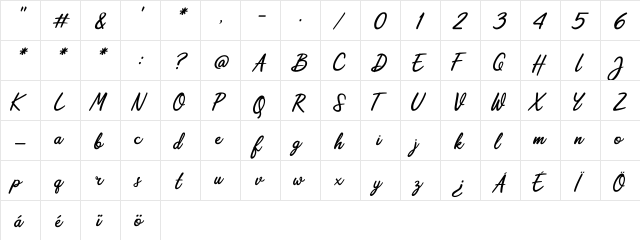
Scripterialism Regular
Design Context for Scripterialism Typeface
Scripterialism brings a calligraphic fluidity to the page — its connecting strokes and expressive curves give it an unmistakably human quality.
Font Pairing: Combine Scripterialism with a simple geometric sans for maximum contrast — the tension between flowing curves and clean structure is a classic typographic pairing.
Pro Tip: Pair Scripterialism with a clean sans-serif for supporting text. The contrast between fluid script and geometric structure creates an elegant typographic hierarchy.